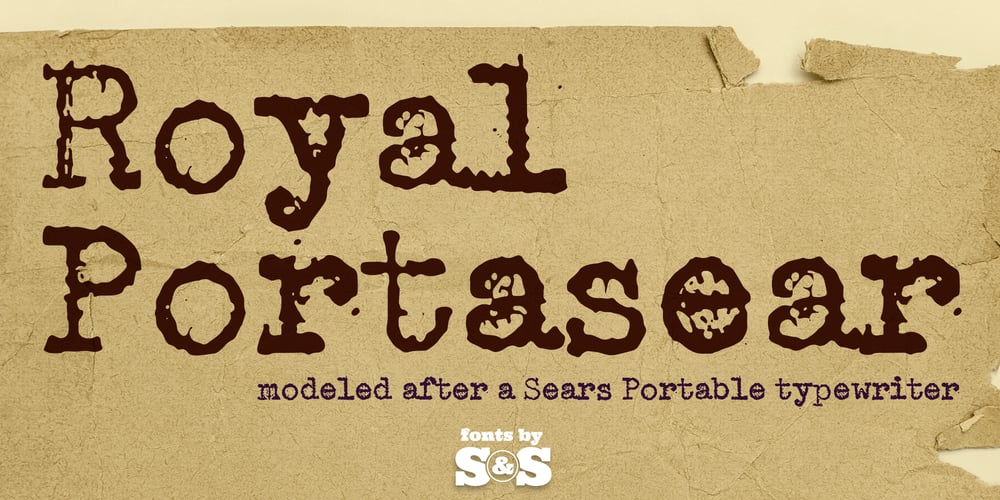
Royal Portasear Font Family was designed by Jim Lyles, Brian J. Bonislawsky and published by Stiggy & Sands. Royal Portasear contains 1 styles and family package options. Royal Portasear brings the unique distressed look of a rummage sale find to the digital age, that of a old Sears Portable typewriter. Royal Portasear maintains the tooth and grit of its as-is discovered condition without any cleaning – old typewriter, inked up keys, crummy ribbon. This typeface reads optimally at smaller typesettings. It’s a unique typewriter typeface that exudes ephemeral quality reminiscent of redacted documents and old mimeographs of typewritten memos.Antique typewriters would type with a warmth and appeal to them, primarily because of their unpredictable “grunge” results from force of keystrokes to ribbon and paper and we’ve tried to keep that flavor by adding an alternate set of Capitals, Lowercase, and Numerals that will auto swap in as you type (when Contextual Alternates is enabled) adding subtle variance to the letters.OpenType features include: Standard typesetting character set. Stylistic Alternates variant Capitals, Lowercase, and Numerals sets. Contextual Alternates feature which auto enables switching between the two sets as you type)